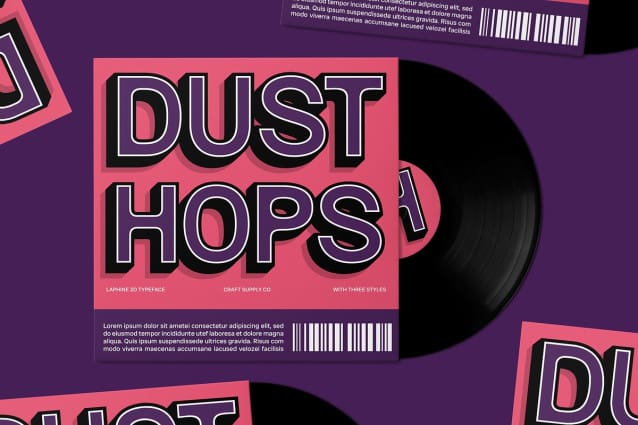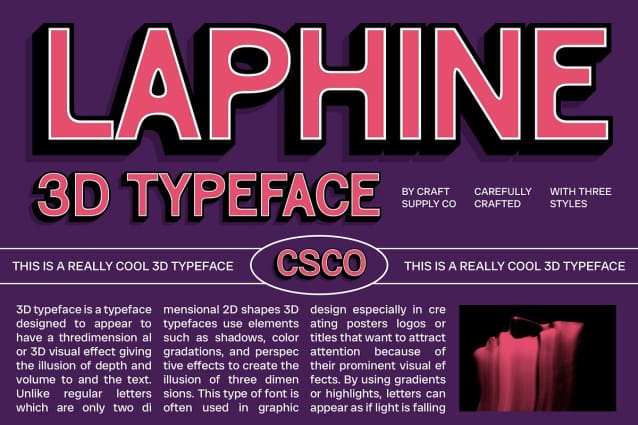
Laphine 3D Font
Laphine 3D Font is a modern sans serif font that combines a contemporary shape with a stunning 3D effect, resulting in a stylish and captivating design. With its clean lines and balanced proportions, this font presents a fresh and innovative appearance, making it a standout choice for any project. Its minimalist style ensures clarity and legibility, making it suitable for both large headlines and smaller text applications.
Dimension and Visual Impact The remarkable 3D effect of Laphine 3D adds dimension and depth, providing striking visual impact that captures attention effortlessly. This feature not only enhances the font’s aesthetic appeal but also allows it to stand out in various applications, from branding to promotional materials. The interplay of light and shadow creates a memorable presence, ensuring your designs make a lasting impression. This font draws the viewer’s eye, making it perfect for key elements that need to shine in your design.
Versatile for Diverse Applications Ideal for a wide range of design applications, Laphine 3D shines in branding, posters, and digital designs. Whether you’re looking to create a sleek logo, an eye-catching advertisement, or engaging social media graphics, this font effectively communicates modernity and sophistication. Its versatility makes it suitable for various industries, from tech to fashion, ensuring it adapts beautifully to different contexts and audiences.